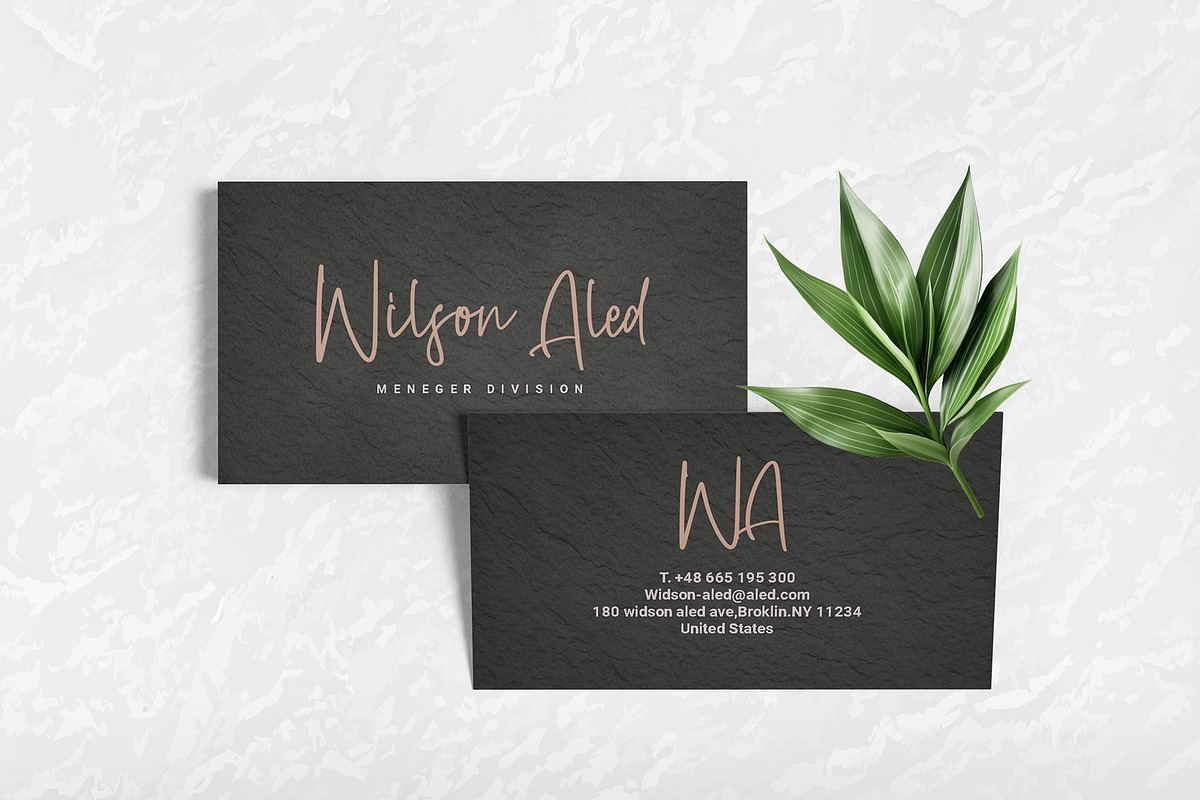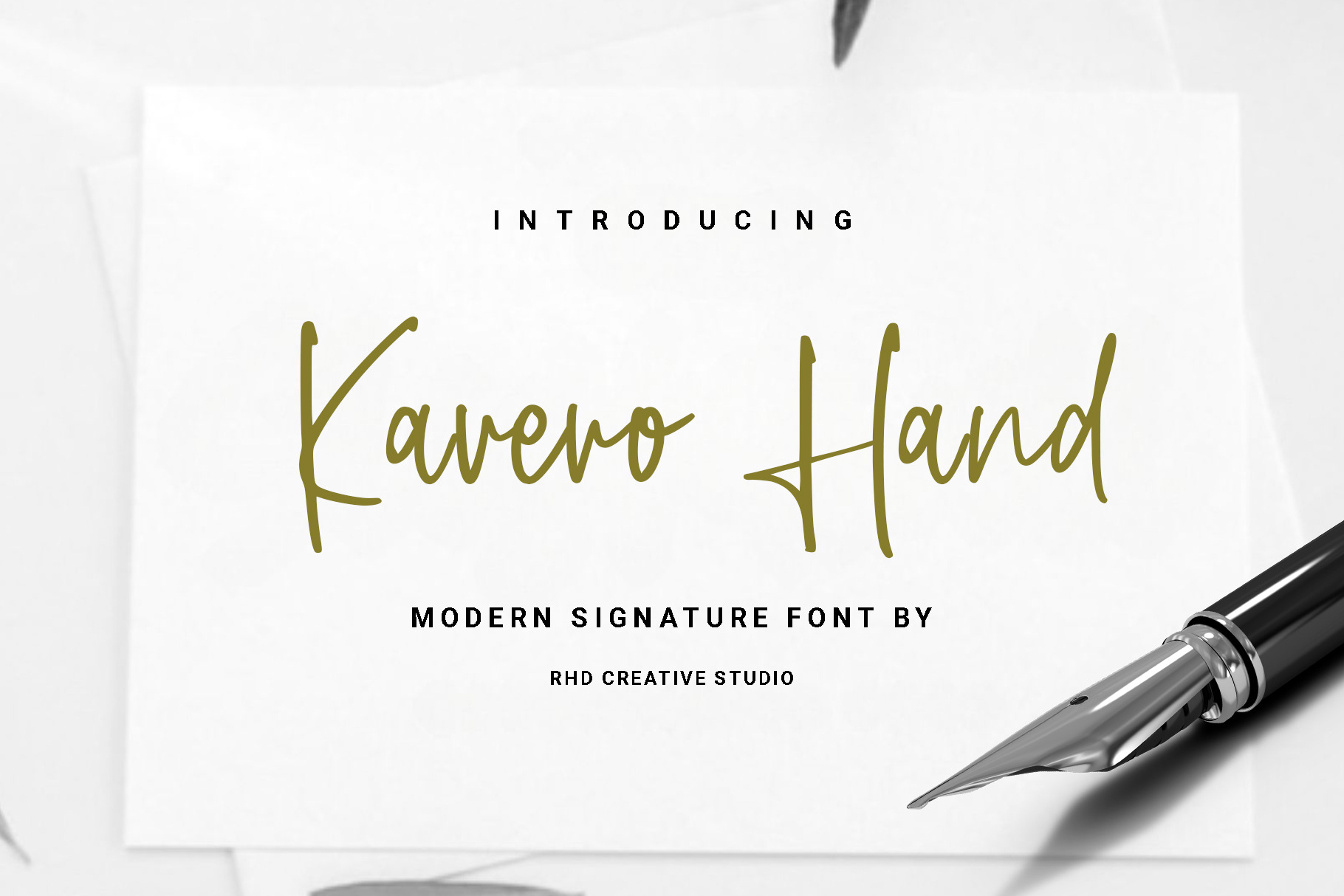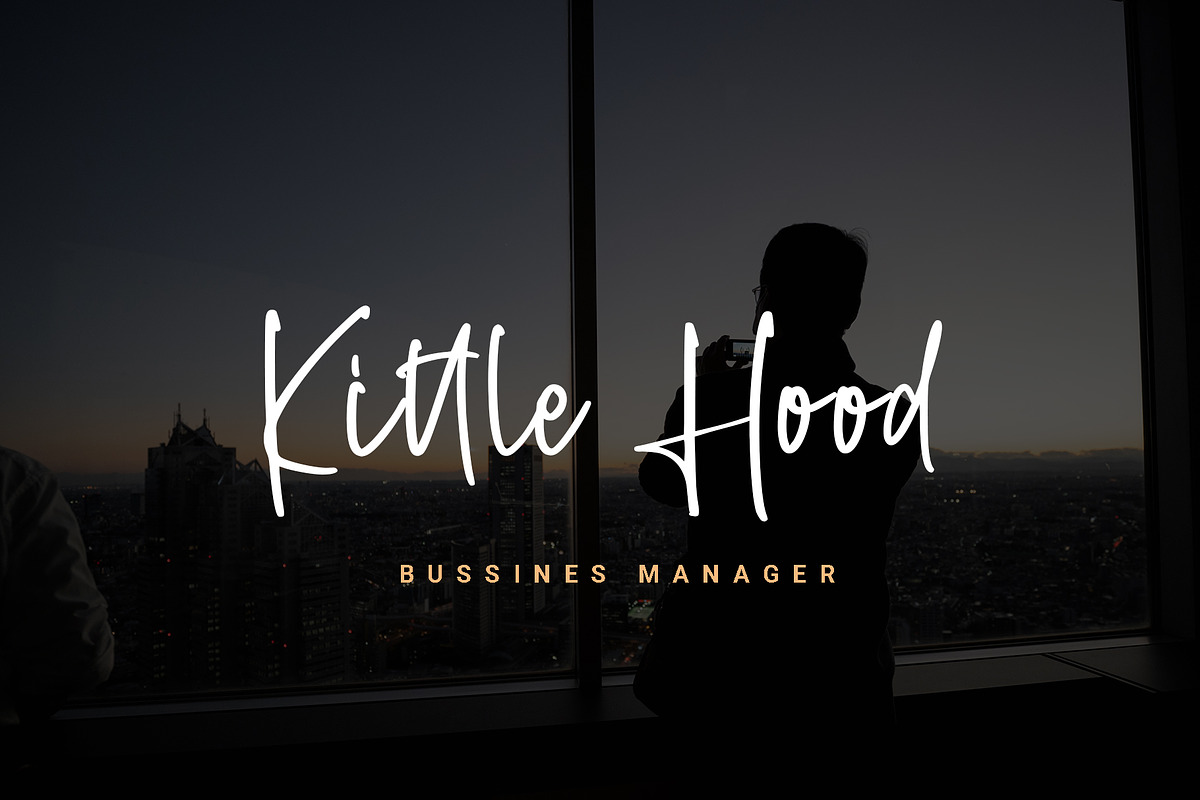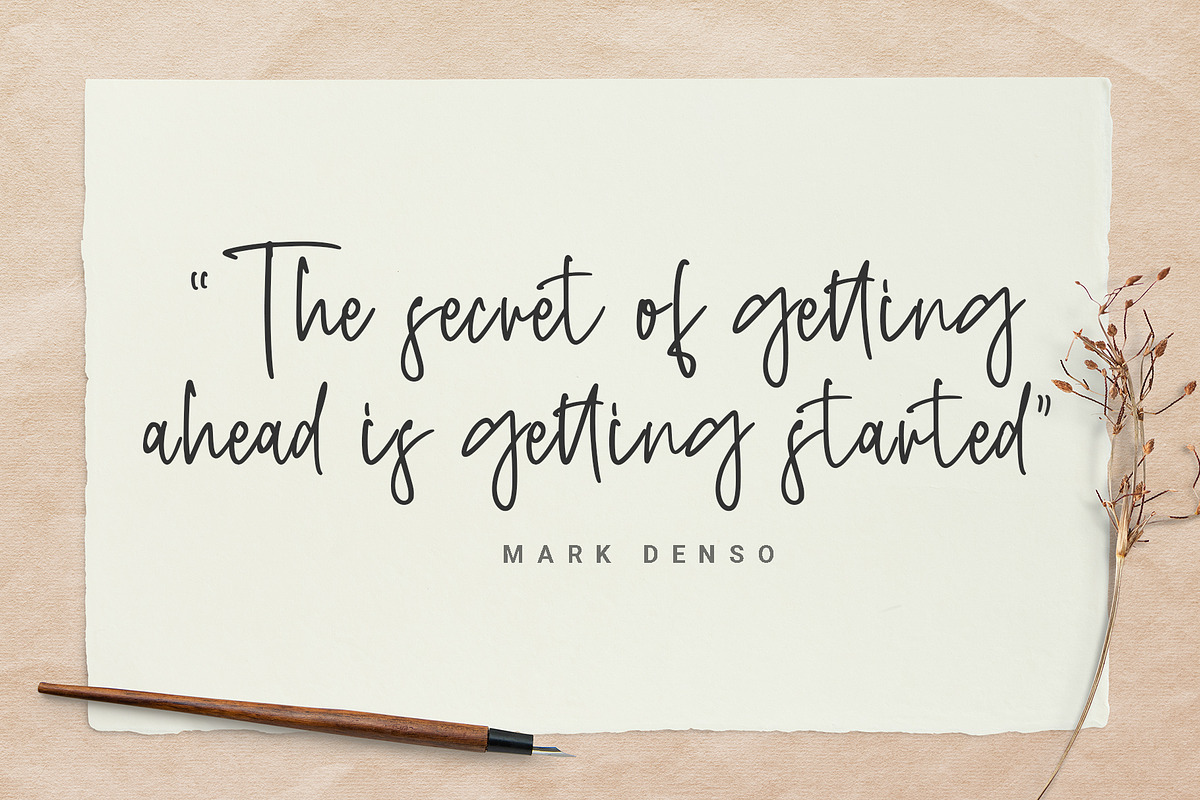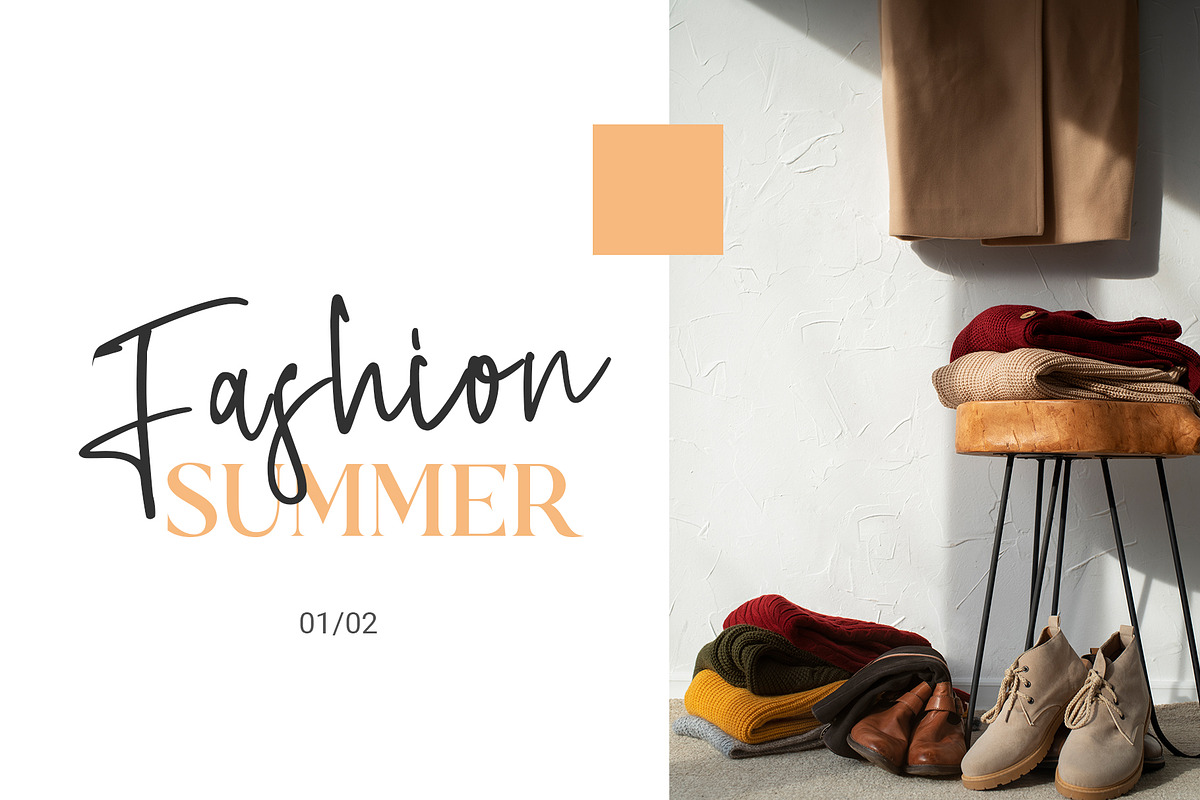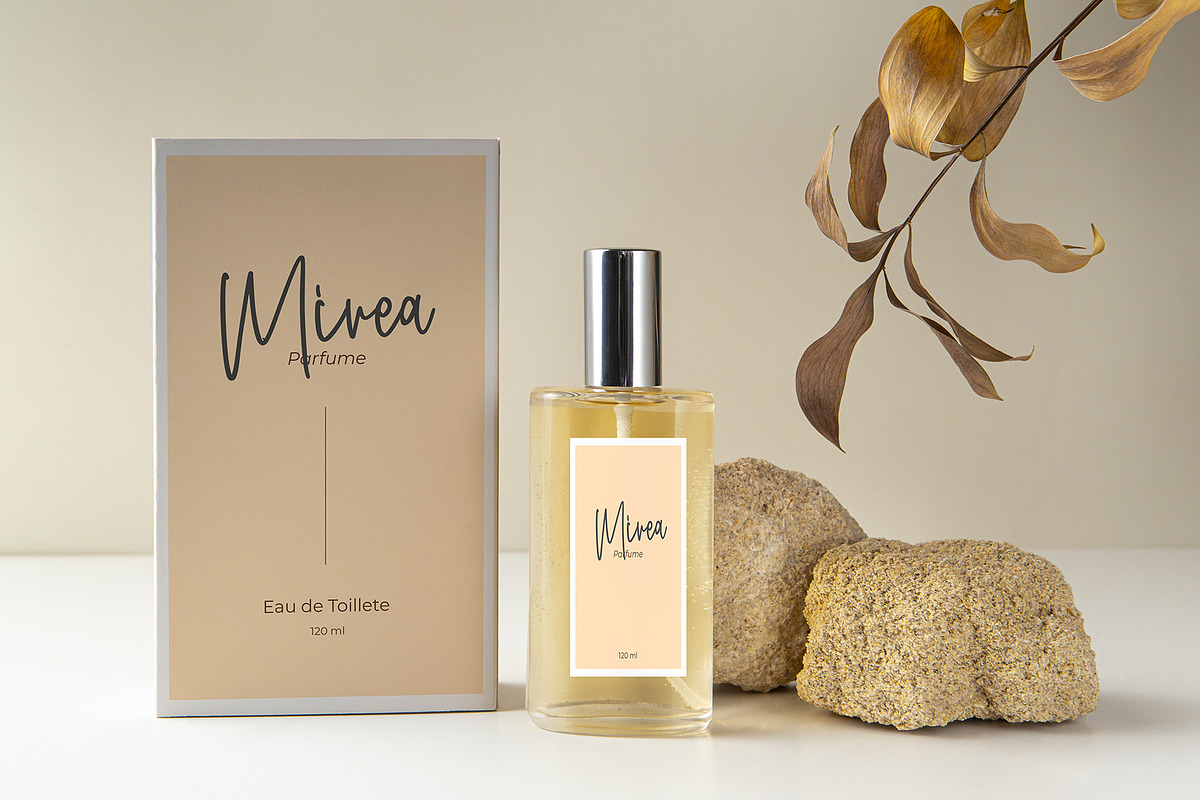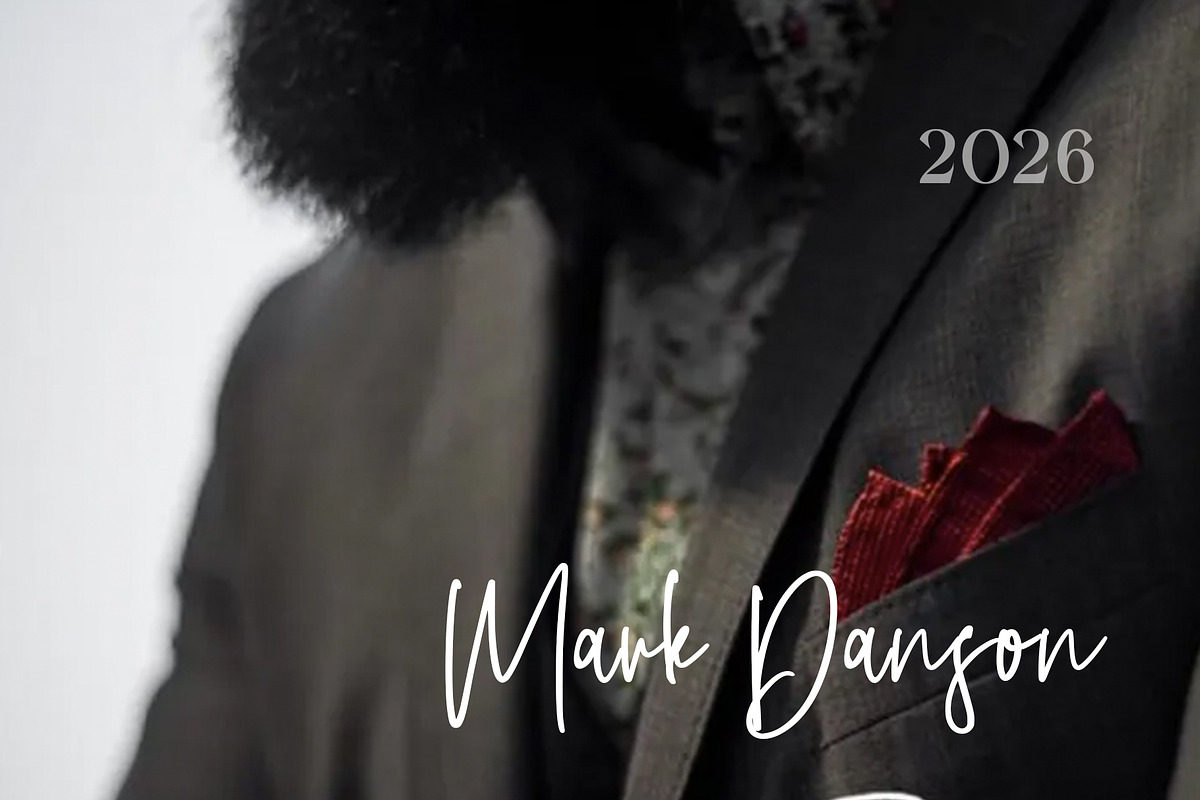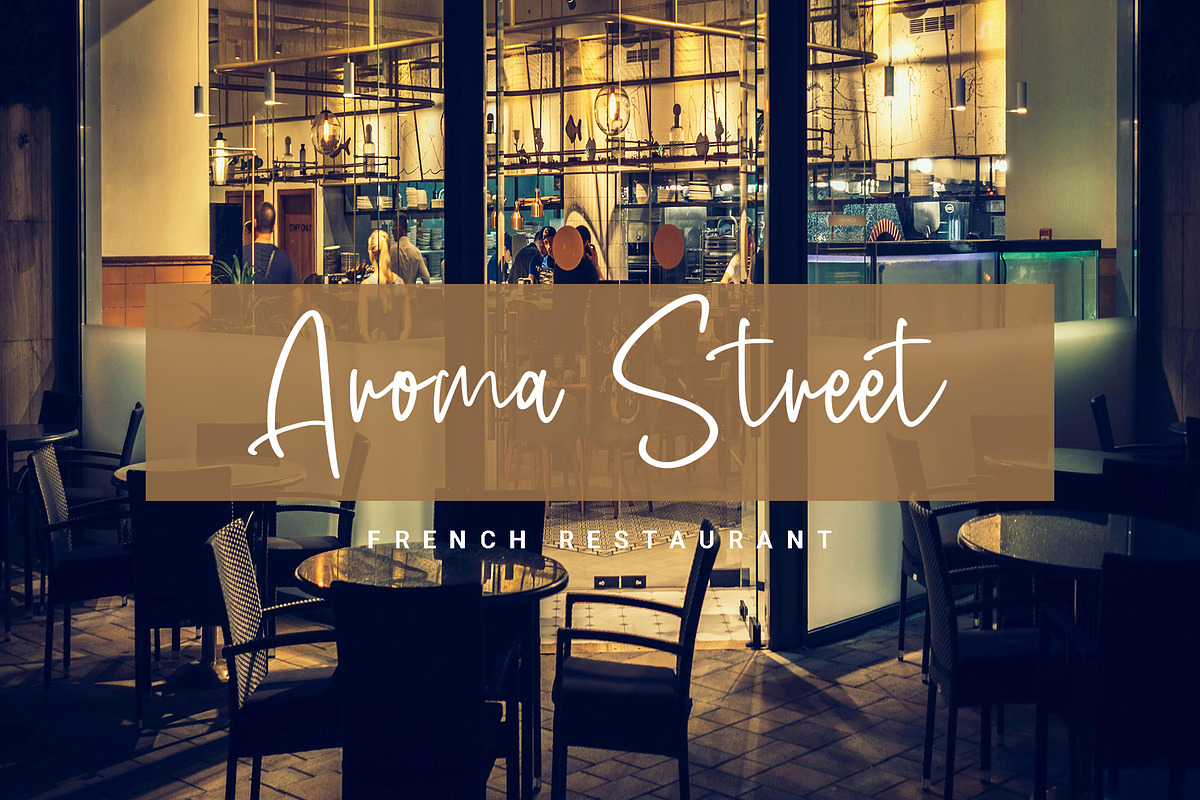
Kavero Hand - Modern Signature Font
Hello everyone, I would like to introduce Kavero Hand - Modern Signature Font.
Kavero Hand - Modern Signature Font with Handmade character. Kavero Hand - Modern Signature Font , Modern font to make your design project stand out! Kavero Hand is a perfectly choice for any creative endeavor, creating, modern, chic, lifestyle design such as logotype, title, cover, branding, invitations, wedding designs, display and magazine, social media posts, advertisements, printed quotes, product packaging, corporate brand, product designs, labels, photography, watermarks, special events and any other project with modern touch.